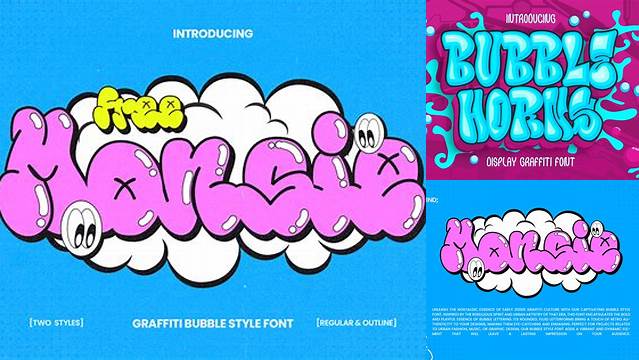
Graffiti Bubble Font: Free Downloads & Creative Ideas
Are you ready to dive into the vibrant world of graffiti art? One of the most eye-catching elements of graffiti is the font, and the bubble font style is a classic choice. It's fun, playful, and instantly adds a dynamic feel to any design. If you're looking for a graffiti bubble font free download, you've come to the right place! This article will explore everything you need to know about graffiti bubble fonts, where to find them, and how to use them to create stunning visuals.
1. Understanding the Allure of Graffiti Bubble Fonts
Guys, let's talk about why graffiti bubble fonts are so darn popular. It's not just about looking cool (though they totally do!). These fonts bring a sense of fun and accessibility to graffiti art. The rounded shapes and playful curves make them less intimidating than some of the sharper, more aggressive styles. This makes them a great choice for beginners who are just starting to explore the world of graffiti. Think about it: when you see a bubble font, it instantly feels more approachable and lighthearted. This is why they're often used in designs that aim to be positive and energetic. So, if you're aiming for a design that pops with personality, a graffiti bubble font free download might be exactly what you need. They're not just letters; they're little bundles of joy waiting to be unleashed on your canvas, whether it's digital or a good ol' fashioned wall.
3. The Art of Customizing Your Bubble Font
Finding the perfect graffiti bubble font free download is only half the battle. The real fun begins when you start customizing it to make it your own! There are tons of ways to tweak and personalize your font to fit your unique style. You can experiment with different colors, add outlines or shadows, and even incorporate textures to give your font a more realistic graffiti feel. Think about using gradients to create a sense of depth or adding splatters and drips to mimic the look of spray paint. The possibilities are endless! Don't be afraid to get creative and push the boundaries. You can use graphic design software like Adobe Photoshop or Illustrator to really take your customization to the next level. Play around with different effects and filters until you find something that you love. Remember, graffiti is all about self-expression, so let your personality shine through in your font design.
4. Integrating Bubble Fonts into Digital Designs
So, you've got your awesome graffiti bubble font, now what? Well, the good news is that these fonts can be used in all sorts of digital designs. Whether you're creating social media graphics, website banners, or even video thumbnails, a bubble font can add a touch of urban flair to your project. Think about using it for headlines, logos, or even just to highlight important information. A graffiti bubble font free download can be a game-changer for your visual content, but don't overdo it! Use it sparingly to avoid overwhelming your audience. Consider the overall aesthetic of your design and make sure the font complements the other elements. For example, a bright, colorful bubble font might look great on a vibrant, energetic design, but it might clash with a more minimalist or sophisticated layout. Experiment with different combinations and see what works best for you.
5. Bubble Fonts in Logo Design: Making a Statement
Using graffiti bubble fonts in logo design can be a bold and effective way to make a statement. Think about brands that want to project a youthful, energetic, or rebellious image. A bubble font can be the perfect way to communicate that message visually. However, it's important to use this style strategically. A bubble font might not be appropriate for every brand. For example, a law firm or a financial institution probably wouldn't want to use a bubble font in their logo. But if you're designing a logo for a skateboard company, a music venue, or a clothing brand targeted at young people, a graffiti bubble font free download could be just what you need to stand out from the crowd. Make sure to choose a font that is legible and scalable, so it looks good both on a business card and on a billboard. Also, consider the colors and overall design of the logo to ensure that everything works together harmoniously.
6. The History and Evolution of Bubble Lettering
To truly appreciate graffiti bubble fonts, it's helpful to understand their history and evolution. Bubble lettering has its roots in the early days of graffiti culture, emerging as a distinct style characterized by its rounded, inflated forms. This style provided a fresh contrast to the sharper, more angular styles that preceded it. As graffiti evolved, so did bubble lettering, with artists experimenting with different techniques and variations. From simple, rounded shapes to more complex, three-dimensional designs, bubble fonts have continued to adapt and innovate. Today, they remain a popular choice among graffiti artists and designers alike, thanks to their playful aesthetic and versatility. Whether you're drawn to the classic simplicity of early bubble letters or the more intricate designs of modern graffiti, understanding the history of this style can help you appreciate its unique charm and lasting appeal.
7. Creating Eye-Catching Titles with Bubble Fonts
Want to make your titles pop? Graffiti bubble fonts are your secret weapon. A bubble font instantly grabs attention and adds a playful vibe to any headline. But it's not just about slapping on any old bubble font and calling it a day. You need to think about readability, contrast, and overall design. Choose a font that is easy to read, even from a distance. Pay attention to the spacing between letters and make sure your title is not too cluttered. Use contrasting colors to make your title stand out from the background. For example, a bright yellow bubble font on a black background will really grab the viewer's attention. Experiment with different font sizes and styles to find the perfect balance. A well-designed title can be the difference between someone clicking on your content or scrolling right past it. So, take the time to choose the right graffiti bubble font free download and make your titles shine!
8. Bubble Fonts in Street Art: A Visual Staple
In the world of street art, graffiti bubble fonts are a visual staple. They're everywhere you look, from tags on walls to large-scale murals. Bubble fonts are a favorite among street artists because they're easy to create quickly and they have a distinctive, recognizable style. They also offer plenty of room for customization and experimentation. Street artists often add their own unique flair to bubble letters, incorporating drips, splatters, and other visual elements to make their work stand out. The use of bubble fonts in street art is not just about aesthetics; it's also about communication. Bubble letters can be used to convey messages, express emotions, and make a statement. They're a powerful tool for self-expression and a way for artists to connect with their audience. So, the next time you're walking down the street, take a closer look at the graffiti around you. Chances are, you'll spot a bubble font or two!
9. Mastering the Technique of Drawing Bubble Letters
Want to take your graffiti skills to the next level? Mastering the technique of drawing bubble letters is a great place to start. It might seem simple at first, but there's actually a lot of skill involved in creating well-proportioned, visually appealing bubble letters. Start by sketching out the basic shapes of the letters. Focus on creating smooth, rounded curves and consistent letter spacing. Once you're happy with the overall shape, you can start adding details like outlines, shadows, and highlights. Experiment with different line weights to create a sense of depth and dimension. Don't be afraid to erase and redraw as needed. Practice makes perfect! There are tons of tutorials and resources available online to help you improve your bubble letter drawing skills. With a little bit of patience and dedication, you'll be creating amazing graffiti bubble fonts in no time!
10. Bubble Fonts for Beginners: A Gentle Introduction
If you're new to the world of graffiti, bubble fonts are a fantastic place to start. They're much more forgiving than some of the more complex graffiti styles, making them perfect for beginners. The rounded shapes and simple forms are easy to grasp, and there's plenty of room for experimentation. Don't worry about making mistakes; graffiti is all about self-expression, so just have fun and let your creativity flow. Start by practicing basic bubble letters and gradually work your way up to more complex designs. Use online tutorials and resources to learn new techniques and get inspiration. Remember, everyone starts somewhere, so don't get discouraged if your first attempts aren't perfect. The key is to keep practicing and experimenting until you find your own unique style. A graffiti bubble font free download can be a great tool for getting started, providing you with a template to work from and customize.
11. The Psychology Behind the Appeal of Bubble Fonts
Ever wondered why bubble fonts are so appealing? It's not just about aesthetics; there's actually some psychology behind it. The rounded shapes and soft curves of bubble letters tend to evoke feelings of happiness, playfulness, and nostalgia. They remind us of childhood, cartoons, and carefree days. This can make them a powerful tool for creating positive associations with your brand or message. Bubble fonts can also be seen as more approachable and less intimidating than other font styles, making them a great choice for designs that aim to connect with a wider audience. So, if you're looking to create a design that is both visually appealing and emotionally engaging, consider using a graffiti bubble font free download to tap into the positive associations that these fonts evoke.
12. Advanced Techniques in Bubble Font Design
Once you've mastered the basics of bubble font design, it's time to explore some advanced techniques. This is where you can really start to push the boundaries and create truly unique and eye-catching designs. Think about experimenting with different textures, gradients, and three-dimensional effects. You can also try incorporating elements of other graffiti styles, such as wildstyle or throw-ups, to create a hybrid design. Another advanced technique is to use negative space to create interesting visual effects. By carefully shaping the empty space around your bubble letters, you can create the illusion of depth and movement. Don't be afraid to experiment and try new things. The key is to keep pushing yourself and challenging your creative limits. With a little bit of practice and dedication, you'll be creating amazing graffiti bubble fonts that are sure to impress.
13. Combining Bubble Fonts with Other Graffiti Styles
One of the coolest things about graffiti is the way different styles can be combined to create something truly unique. And bubble fonts are no exception. They can be seamlessly integrated with other graffiti styles like wildstyle, throw-ups, and tags to create dynamic and visually interesting compositions. Think about using bubble letters as the base for a wildstyle design, or incorporating them into a throw-up to add a touch of playfulness. You can also use bubble fonts to highlight certain words or phrases within a larger graffiti piece. The key is to experiment and find combinations that work well together. Don't be afraid to break the rules and try new things. The most important thing is to have fun and let your creativity flow. A graffiti bubble font free download can be a great starting point for exploring these combinations, giving you a versatile element to work with.
14. The Impact of Color on Bubble Font Aesthetics
The impact of color on bubble font aesthetics cannot be overstated. Color can completely transform the look and feel of a bubble font, turning a simple design into a vibrant and eye-catching masterpiece. Think about using bright, contrasting colors to create a bold and energetic look, or opting for more muted tones for a softer, more subtle effect. You can also use gradients to create a sense of depth and dimension, or add highlights and shadows to make your bubble letters pop. The possibilities are endless! When choosing colors for your bubble font, consider the overall message you want to convey. Bright, vibrant colors are often associated with energy and excitement, while more subdued colors can evoke feelings of calmness and sophistication. Experiment with different color combinations until you find something that perfectly captures your vision. A graffiti bubble font free download provides a blank canvas for you to unleash your creativity with color.
15. Bubble Fonts in Pop Culture: A Recognizable Icon
Bubble fonts have become a recognizable icon in pop culture, appearing in everything from cartoons and comic books to album covers and clothing designs. Their playful and approachable aesthetic makes them a popular choice for brands and artists looking to connect with a wide audience. Think about the logos of popular snack foods or the title sequences of animated TV shows. Chances are, you've seen bubble fonts in action countless times. Their widespread use in pop culture has helped to solidify their status as a visual shorthand for fun, youthfulness, and creativity. So, when you use a graffiti bubble font free download in your designs, you're tapping into a rich cultural history and leveraging the positive associations that these fonts evoke.
16. Creating 3D Effects with Bubble Lettering
Adding a 3D effect to your bubble lettering can take your designs to a whole new level. It creates depth, dimension, and a sense of realism that makes your bubble letters really pop off the page (or screen). There are several techniques you can use to achieve a 3D effect, including adding shadows, highlights, and perspective. One popular method is to create a drop shadow that extends slightly behind and to the side of your bubble letters. You can also add highlights to the top and sides of your letters to create the illusion of light reflecting off of them. Experiment with different angles and intensities to find the perfect balance. Another technique is to use perspective to create the illusion that your bubble letters are receding into the distance. This can be achieved by making the letters smaller and closer together as they move further away from the viewer. With a little bit of practice, you'll be creating amazing 3D graffiti bubble fonts that are sure to impress.
17. The Use of Outlines and Shadows in Bubble Fonts
The use of outlines and shadows is crucial in bubble font design. Outlines define the shape of the letters and make them stand out from the background, while shadows create depth and dimension. Think about using a thick outline to create a bold and impactful look, or opting for a thinner outline for a more subtle effect. You can also experiment with different colors for your outlines to add a touch of personality to your design. When it comes to shadows, there are several different techniques you can use. A simple drop shadow is a classic choice, but you can also try using a more complex shadow with multiple layers and gradients. The key is to experiment and find what works best for your overall design. Outlines and shadows are essential elements in bubble font design, so take the time to master these techniques and you'll be well on your way to creating amazing graffiti bubble fonts.
18. Bubble Font Alternatives: Exploring Similar Styles
While graffiti bubble fonts are a classic choice, there are also plenty of other similar styles that you can explore. These alternatives offer a fresh take on the bubble font aesthetic, while still retaining the playful and approachable vibe that makes these fonts so popular. Think about trying out a rounded sans-serif font for a clean and modern look, or opting for a more cartoonish font for a fun and whimsical feel. You can also experiment with hand-drawn fonts for a more organic and personalized touch. The key is to find a font that complements your overall design and conveys the message you want to communicate. Don't be afraid to step outside of the box and try something new. There are tons of amazing fonts out there just waiting to be discovered. A graffiti bubble font free download might be your starting point, but the possibilities are endless!
19. The Legibility Factor: Choosing the Right Bubble Font
When choosing a graffiti bubble font, legibility is key. While it's important to find a font that looks cool and fits your overall design, it's even more important to make sure that your text is easy to read. A bubble font that is too stylized or distorted can be difficult to decipher, especially at smaller sizes. Think about choosing a font that has clear and distinct letterforms, with consistent spacing between letters. Avoid fonts that have overly complex or decorative elements that can distract from the readability of the text. Also, consider the background color and contrast when choosing a bubble font. A light font on a dark background will be easier to read than a dark font on a light background. Legibility should always be a top priority when choosing a bubble font, so take the time to find a font that is both visually appealing and easy to read.
20. Resources for Learning Graffiti Bubble Font Design
Want to learn more about graffiti bubble font design? Luckily, there are tons of resources available online to help you improve your skills. Think about checking out online tutorials, design blogs, and YouTube channels for tips and tricks on creating amazing bubble fonts. You can also find tons of inspiration on websites like Behance and Dribbble, where designers showcase their work. Another great way to learn is to practice! Experiment with different techniques and styles until you find what works best for you. Don't be afraid to make mistakes; that's how you learn. With a little bit of dedication and the right resources, you'll be creating amazing graffiti bubble fonts in no time!
21. Licensing Considerations for Free Bubble Fonts
Before you start using that awesome graffiti bubble font free download, it's important to understand the licensing considerations. Not all free fonts are created equal, and some may have restrictions on how you can use them. Think about checking the license agreement carefully before you start using a font, especially if you plan to use it for commercial purposes. Some fonts are free for personal use only, while others can be used commercially. Some fonts may also require you to give credit to the designer. It's always better to be safe than sorry, so take the time to read the license agreement and make sure you're following the rules. Ignoring licensing restrictions can lead to legal trouble down the road, so it's important to be responsible and respectful of the designer's rights.
22. The Role of Technology in Modern Bubble Font Creation
Technology plays a huge role in modern bubble font creation. With the advent of digital design tools, creating stunning bubble fonts has become easier and more accessible than ever before. Think about using software like Adobe Illustrator or Photoshop to create your bubble fonts, or exploring online font generators for a quick and easy solution. Digital design tools offer a wide range of features and options that allow you to customize your bubble fonts to your exact specifications. You can easily adjust the size, shape, and color of your letters, add outlines and shadows, and even create 3D effects. Technology has revolutionized the world of bubble font creation, making it possible for anyone to create amazing designs, regardless of their skill level.
23. Preserving the Authenticity of Graffiti Culture in Digital Design
When using graffiti bubble fonts in digital design, it's important to preserve the authenticity of graffiti culture. Graffiti is more than just a style; it's a form of self-expression and a way for artists to connect with their community. Think about respecting the history and traditions of graffiti culture when using bubble fonts in your designs. Avoid appropriating or misrepresenting the style. Instead, try to use bubble fonts in a way that is both creative and respectful. This means understanding the origins and context of graffiti, and using bubble fonts in a way that is true to its spirit. By preserving the authenticity of graffiti culture in digital design, you can help to ensure that this vibrant and important art form continues to thrive.
24. Future Trends in Bubble Font Design: What's Next?
So, what does the future hold for bubble font design? It's hard to say for sure, but there are a few trends that seem likely to shape the evolution of this popular style. Think about seeing more experimentation with 3D effects, textures, and gradients. We may also see bubble fonts being combined with other styles in new and innovative ways. Another trend to watch out for is the increasing use of animated bubble fonts in web design and social media. As technology continues to evolve, the possibilities for bubble font design are endless. The future of bubble fonts is bright, so stay tuned to see what new and exciting developments emerge in the years to come.
25. Bubble Fonts in Education: Engaging Young Minds
Graffiti bubble fonts can be a fun and engaging way to capture the attention of young learners. Their playful aesthetic and approachable style can make learning more enjoyable and accessible. Think about using bubble fonts in educational materials like worksheets, posters, and presentations. You can also use them to create visually appealing classroom decorations that inspire creativity and learning. Bubble fonts can be especially effective for teaching younger children how to read and write, as their simple and rounded shapes are easy to recognize. By incorporating bubble fonts into the classroom, you can create a more stimulating and engaging learning environment for students of all ages.
26. The Global Appeal of Bubble Lettering: Transcending Borders
Bubble lettering has a global appeal that transcends borders and cultures. From the streets of New York City to the favelas of Brazil, bubble fonts can be found everywhere in the world. Their universal appeal stems from their playful aesthetic and their ability to communicate messages in a simple and direct way. Bubble fonts are often used in street art and graffiti to express ideas and emotions, and their distinctive style makes them instantly recognizable. The global appeal of bubble lettering is a testament to its power as a form of visual communication. Whether you're in Tokyo, London, or Buenos Aires, you're sure to spot a bubble font or two.
27. Bubble Fonts as a Tool for Self-Expression and Identity
Bubble fonts can be a powerful tool for self-expression and identity. The way you choose to design and use bubble letters can reflect your personality, your values, and your unique perspective on the world. Think about using bubble fonts to create personalized logos, social media graphics, or even clothing designs. You can also use them to express your creativity and share your ideas with others. Bubble fonts can be a way to stand out from the crowd and make a statement about who you are. Whether you're an artist, a designer, or just someone who wants to express themselves, bubble fonts can be a valuable tool for self-expression and identity.
28. Ethical Considerations in Using Graffiti-Inspired Fonts
When using graffiti-inspired fonts like bubble fonts, it's important to consider the ethical implications. Graffiti is often associated with vandalism and illegal activity, so it's important to use these fonts responsibly and respectfully. Think about avoiding using graffiti-inspired fonts in a way that promotes or glorifies illegal activity. Instead, try to use them in a way that celebrates the creativity and artistry of graffiti culture. This means understanding the history and context of graffiti, and using these fonts in a way that is both creative and respectful. By considering the ethical implications of using graffiti-inspired fonts, you can help to ensure that they are used in a positive and responsible way.
29. The Therapeutic Benefits of Creating Bubble Letter Art
Creating bubble letter art can be a therapeutic and relaxing activity. The process of drawing and coloring bubble letters can be a great way to relieve stress and anxiety, and it can also help to improve your focus and concentration. Think about setting aside some time each day to create bubble letter art. You can use it as a form of meditation or as a way to unwind after a long day. The act of creating something beautiful and unique can be very rewarding, and it can also help to boost your self-esteem. So, if you're looking for a fun and therapeutic activity, give bubble letter art a try!
30. Resources for Finding Inspiration for Bubble Font Designs
Need some inspiration for your bubble font designs? There are tons of resources available online to help you get your creative juices flowing. Think about checking out websites like Pinterest, Instagram, and Behance for inspiration. You can also find tons of bubble font designs on Google Images. Another great way to get inspired is to look at the work of other artists and designers. Visit art galleries, museums, and design studios to see what's trending in the world of bubble font design. By immersing yourself in the world of art and design, you'll be sure to find plenty of inspiration for your own bubble font creations.